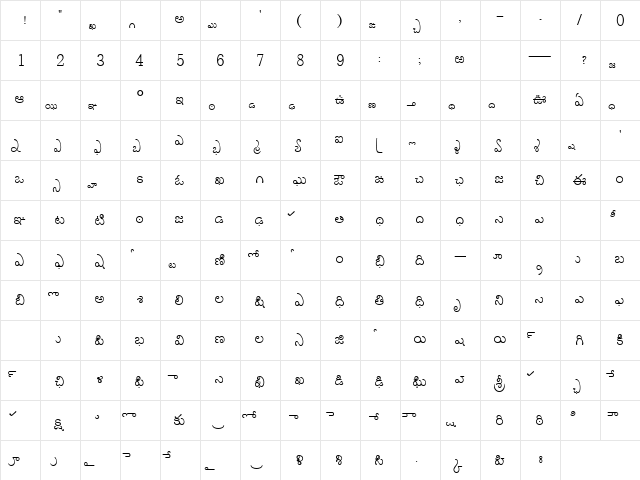
AkrutiTlgGodavari Normal
Design Context for AkrutiTlgGodavari Typeface
AkrutiTlgGodavari is a composed and adaptable typeface that performs quietly and consistently across a wide range of design contexts.